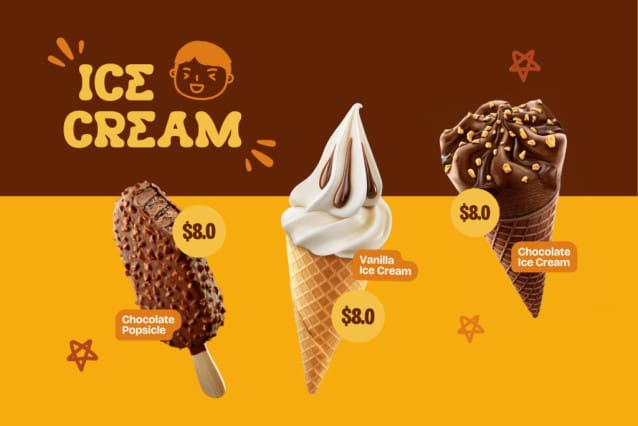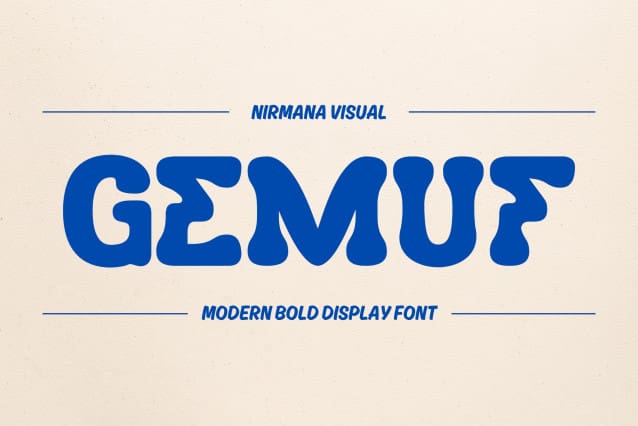
Gemuf Display Font
Gemuf Display Font offers beautiful typographic harmony for a diversity of design projects, including logos & branding, social media posts, advertisements & product designs.